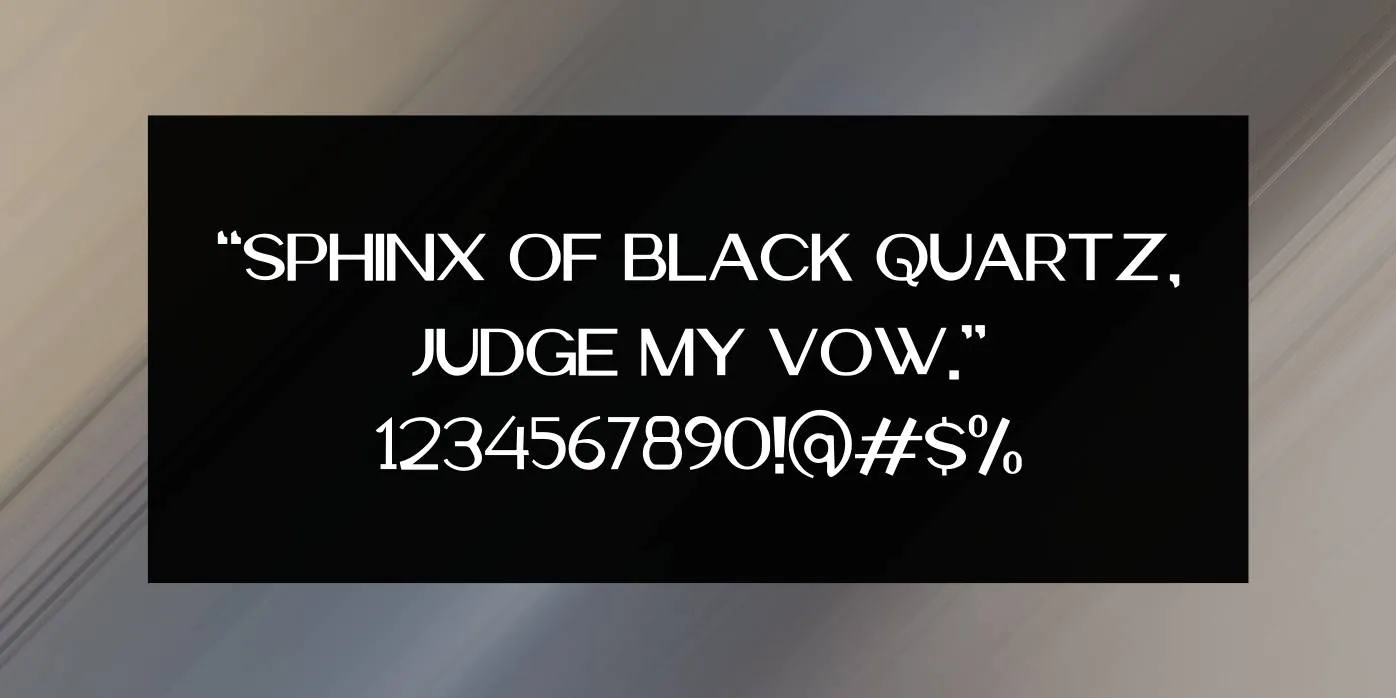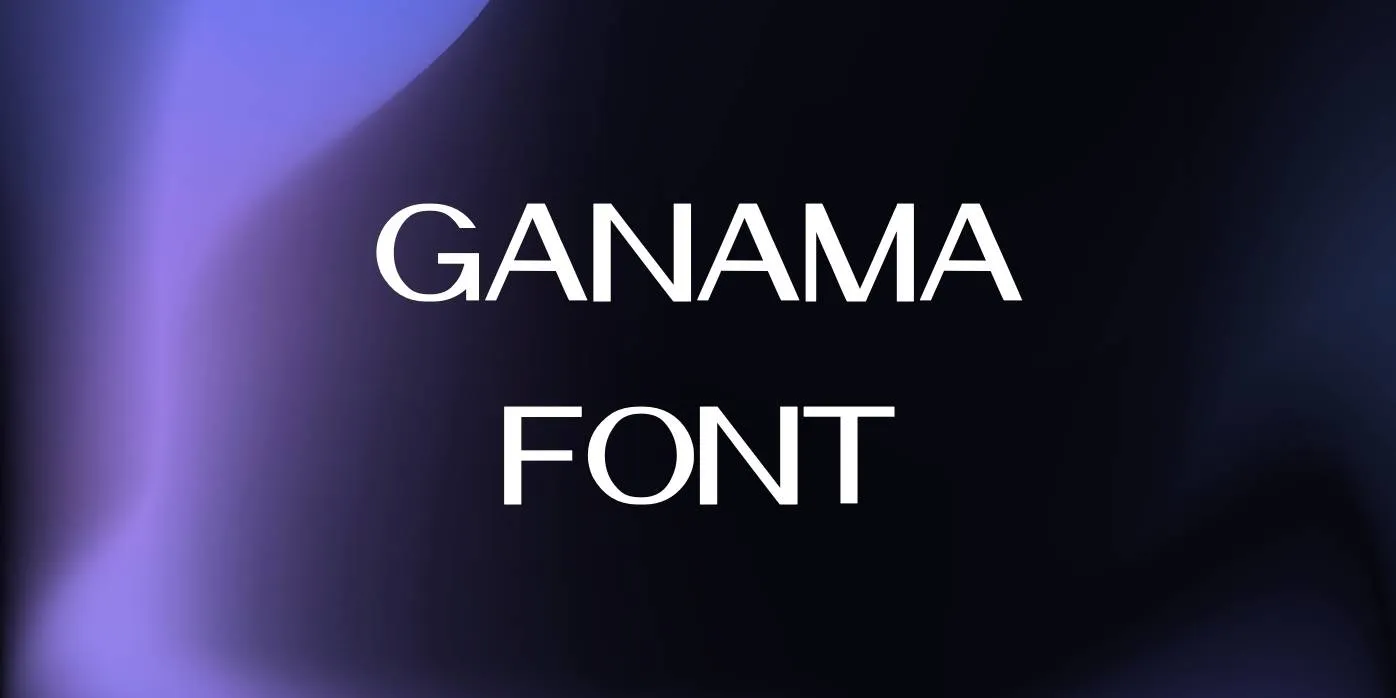
Ganama Font
Ganama Font is a sans-serif font created in 2006 by Harold Lohner. It is named after the Ganama tribe from central Africa. The Font was created to help raise awareness about the plight of the Ganama people. The Font is available for free download and use.
The glyph of this font is based on traditional African symbols and shapes. The font includes a full set of characters, as well as support for all major languages. The Font is available in both TTF and OTF formats. You can also apply a great simple and useful poor richard font that is available on an over web portal and is ready to download.
The Font has been used by major organizations such as the United Nations, Amnesty International, and the Red Cross. The Word software is also very helpful for making important documents and presentations. It has also been featured in major publications such as The New York Times, The Guardian, and Der Spiegel.